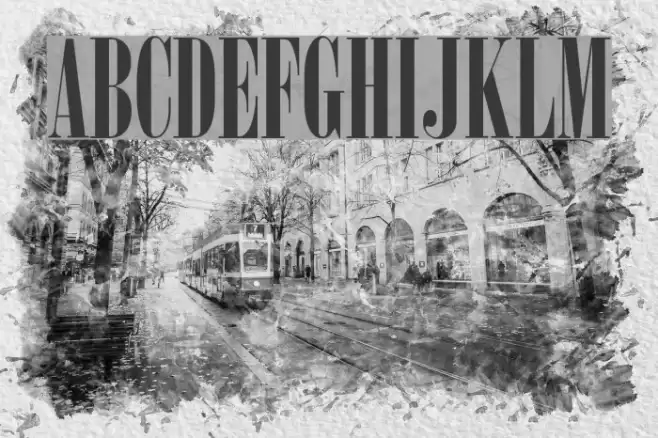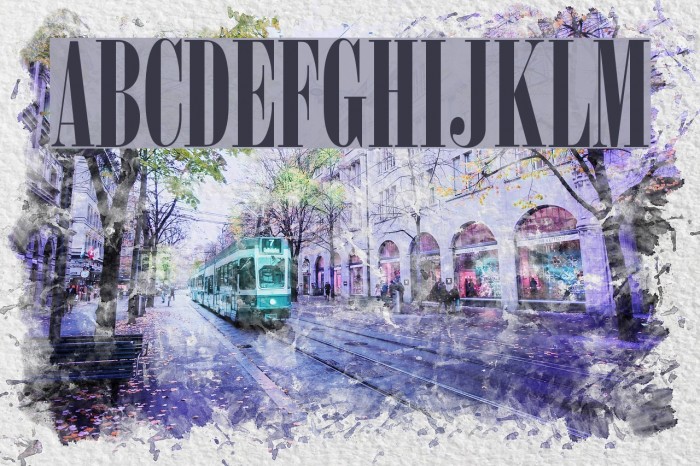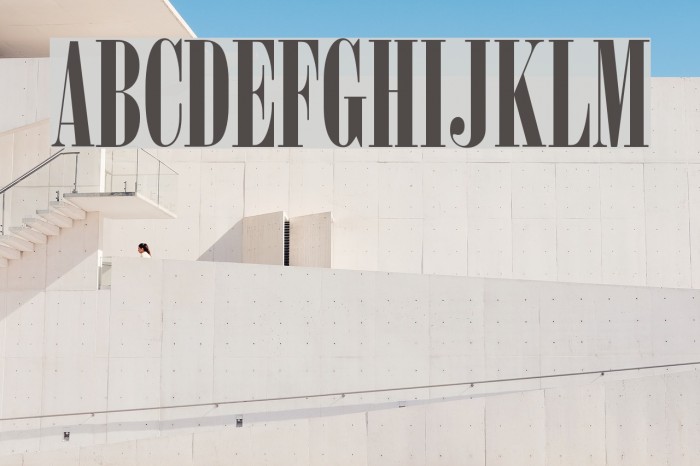
Nirvana Font
Nirvana Description
This font features a bold and striking design with high contrast between thick and thin strokes, giving it a dramatic and elegant appearance. The uppercase letters are tall and commanding, while the lowercase letters maintain a consistent style with slightly more subtle curves. The numerals are distinct and align well with the overall aesthetic. Special characters are included, adding versatility for various uses. The font's design is reminiscent of classic serif styles but with a modern twist, making it suitable for impactful headlines and branding.
A bold, high-contrast serif font with a dramatic and elegant style from Serif fonts.
- Proposed Projects: Ideal for use in magazine headlines, luxury branding, posters, and editorial design.